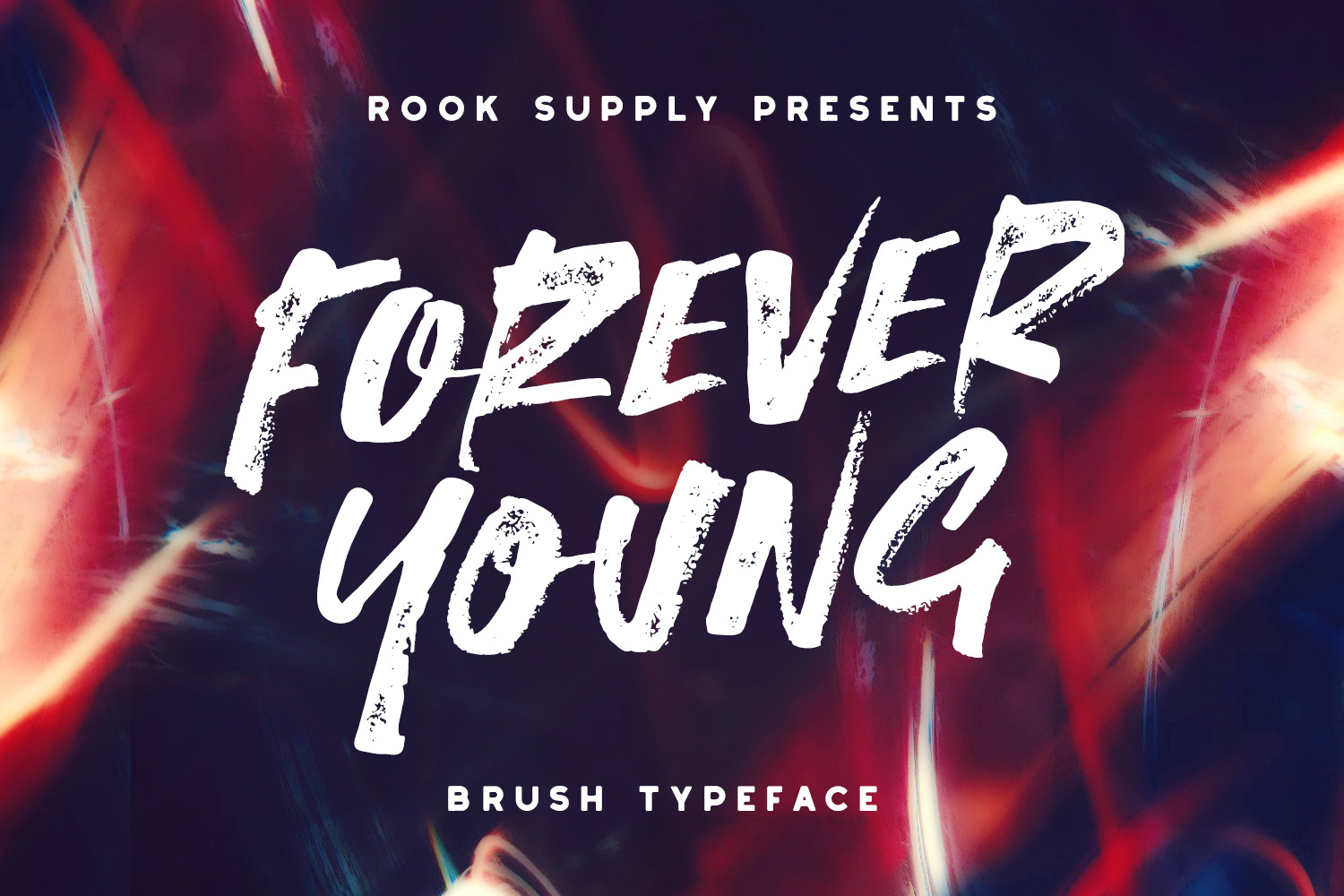
Forever Young Brush Font
Give your project a unique voice with the FOREVER YOUNG typeface. A edgy, modern brush font with tons of texture and personality that is sure to grab peoples attention. This font was hand-drawn and has tons of tiny details in every character. You will love seeing this font up close!
Try mixing different combinations of uppercase and lowercase characters to get the perfect mix you're looking for.
Extra features:
Swashes and Splatters - We've included an extra font file containing 4 splatters and 22 swashes to give your text a little extra boost!
Language Support - We've added in a great deal of extra characters to support many different languages. The font contains over 180 glyphs!